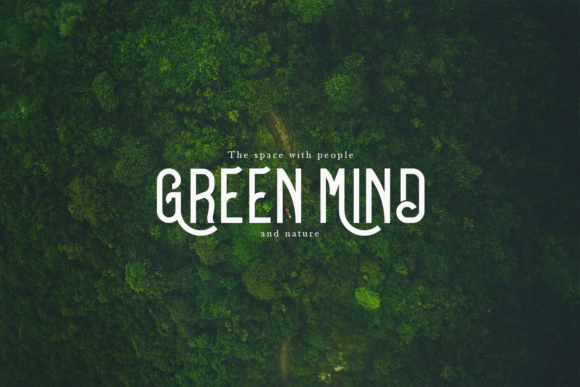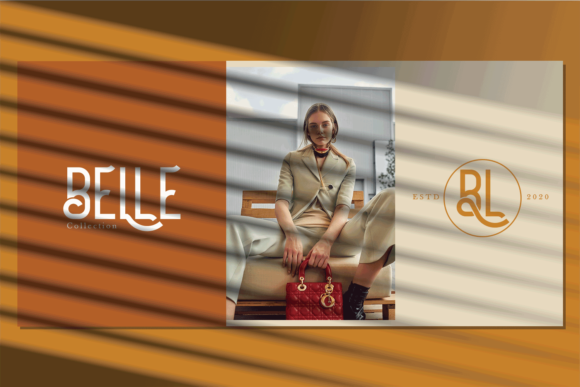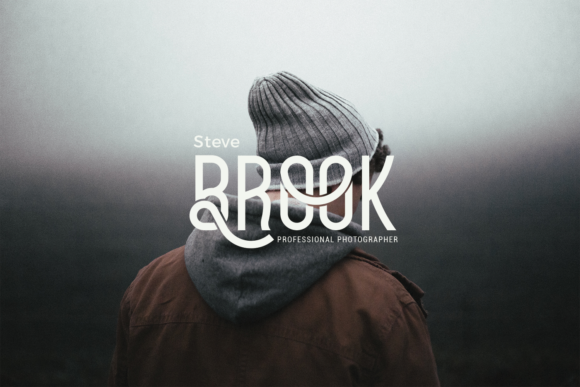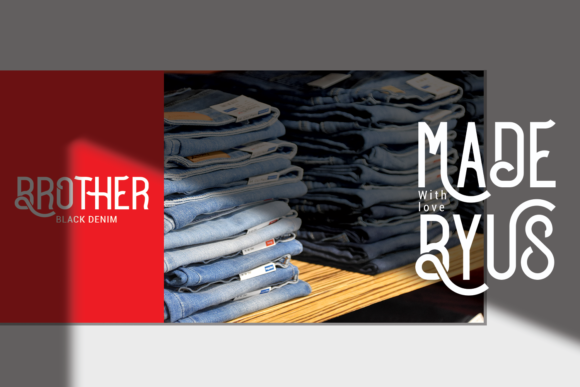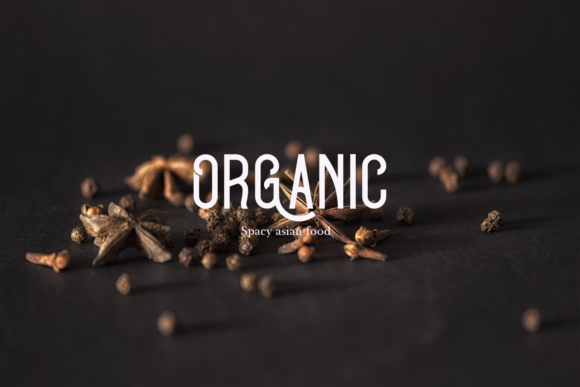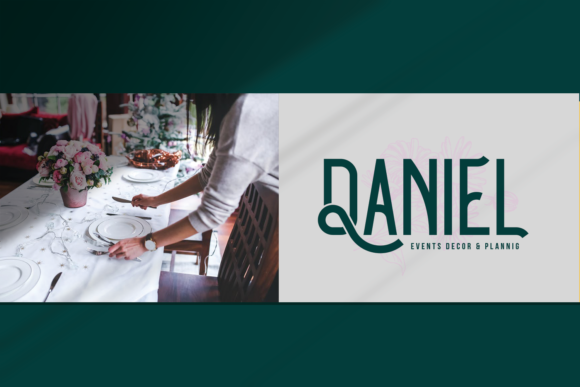
The Ultimate Design Companion: Unveiling the Boysand Font
Have you ever been stuck on a design project, staring at a blank screen, and suddenly, a burst of creativity hits you? It’s as if the perfect font has magically appeared in your mind, guiding you towards a masterpiece. This is exactly what designers have been craving – a versatile and timeless font that elevates their work to new heights.
Enter the Boysand Font, a stunning creation that seamlessly blends nostalgia and modernity. With its extensive range of uppercase, lowercase, and ligatures, the Boysand Font offers limitless design possibilities, making it an indispensable tool for any designer. Whether you’re working on a branding project or a digital campaign, this font is sure to bring your vision to life.
As a valuable addition to your design arsenal, the Boysand Font is a game-changer. Its unique style and versatility make it a go-to choice for designers who demand the best. Get ready to unleash your creativity with the Boysand Font and take your designs to unprecedented levels of excellence.
Key Features of Boysand Font
- Font Family: Boysand is a sans-serif font family designed for digital use.
- Unique Characteristics: Boysand features a clean, modern design with a subtle rounded edge, making it suitable for digital and print applications.
Designer Review: Boysand Font
As a designer, I was excited to dive into the Boysand Font and see what it has to offer. Here’s my honest take:
- Unique Character**: Boysand Font has a quirky, hand-drawn feel that’s hard to find in modern sans-serif fonts.
- Wide Character Set**: The font includes a wide range of characters, including accents, symbols, and even some fun emoji.
- High-Quality Raster**: The font’s raster images are crisp and clear, making it perfect for digital applications.
- Variable Weight Consistency**: The font’s weight system can feel a bit inconsistent, making it tricky to find the perfect balance between light and bold.
- Lack of Italic Options**: While the font includes a range of weights, it’s missing italic options, which can limit its versatility.
- Some Characters May Not Render Correctly**: I noticed a few characters, like the ampersand, don’t render as expected in certain contexts.
Overall, I think Boysand Font is a great choice for designers looking for a unique, hand-drawn feel. However, its limitations may make it less suitable for projects that require precise control over weight and style.
The Boysand Font is ideal for:
- Creating playful and youthful designs.
- Adding a touch of whimsy to your branding.
- Designing children’s products and educational materials.
Alternatives to Boysand Font for Designers